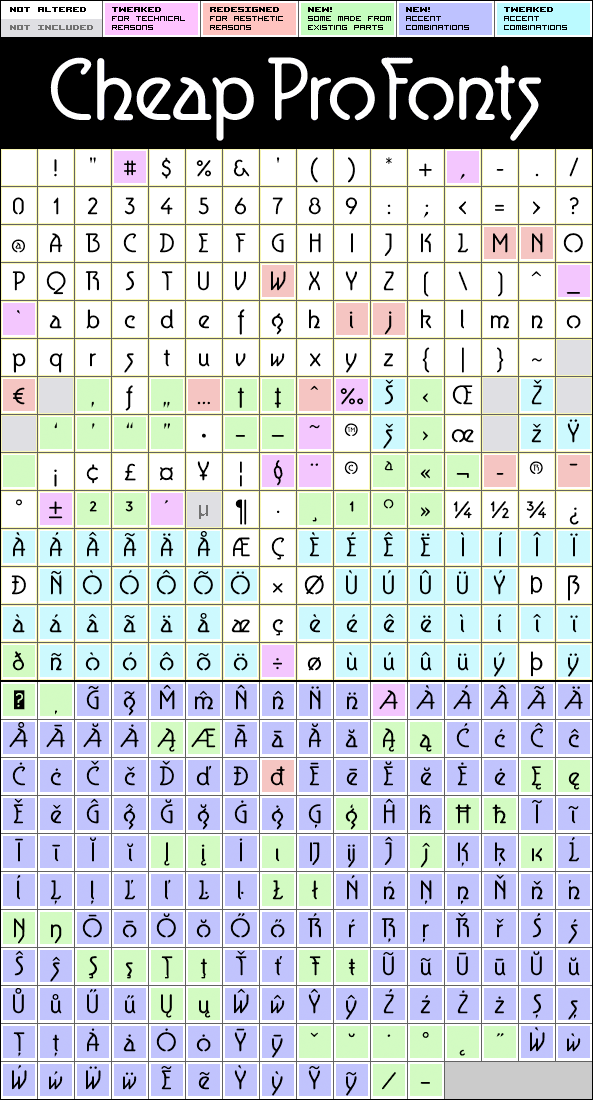
Aerolite Pro
Aerolite Pro Bundle by Jan Paul (digitized by Brian Kent)
Designer:
Jan Paul (digitized by Brian Kent)
Highlights:
388 glyphs in each!
(195 in original)
4606 class kernpairs
= 54801 kerning pairs
(14545 in original)
Description:
The history of Aerolite, from Jan Paul: "The Aerolite fonts are essentially stripped down versions of a complex outline typeface I designed for the first Midnight Oil album in 1978, affectionately known as "The Blue Meanie". Many years later I saw the font "powderworks" and asked Brian Kent if he would be interested in digitizing Aerolite. Brian is a font (!) of knowledge and was of invaluable help by getting Aerolite to where it is today. Special care was taken in keeping the distinct character while as Aerolite Regular also providing a legible, thouroughly kerned body type which can be used in all sizes for large volume text."
For the Pro version the kerning has been tweaked further, and the character set completed and expanded - and the alternate uppercase A (also with accents) is available as OpenType stylistic alternates. It is now ready for your next international science or sci-fi project.
Aerolite Pro is a professionally reworked font that contains an extended character set for setting text in 65 languages requiring more than the basic A-Z!